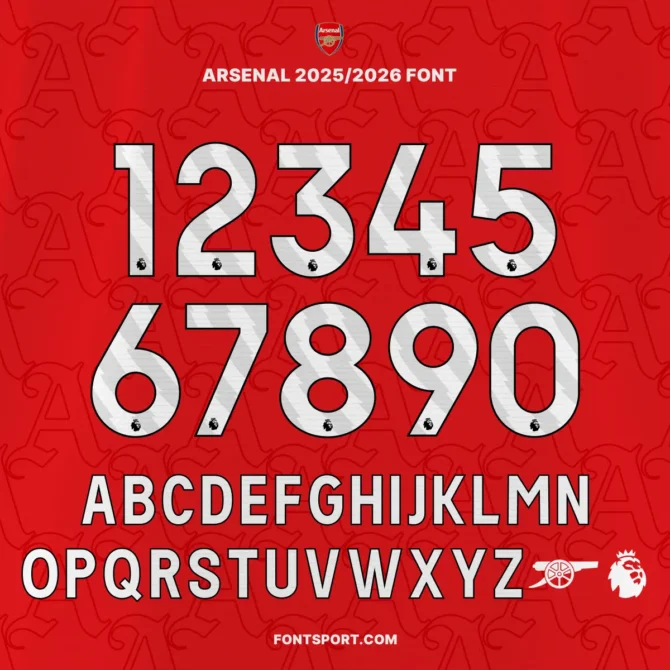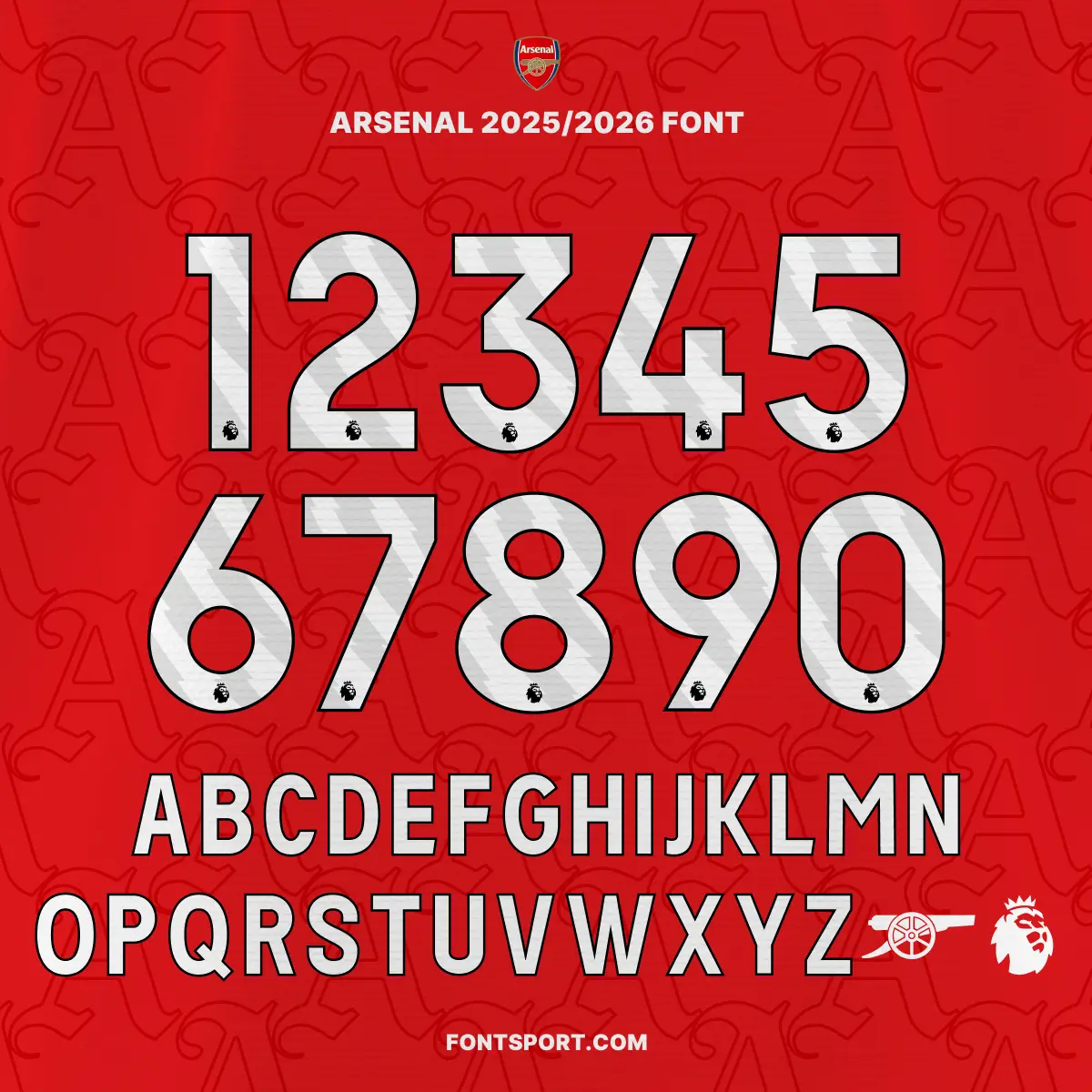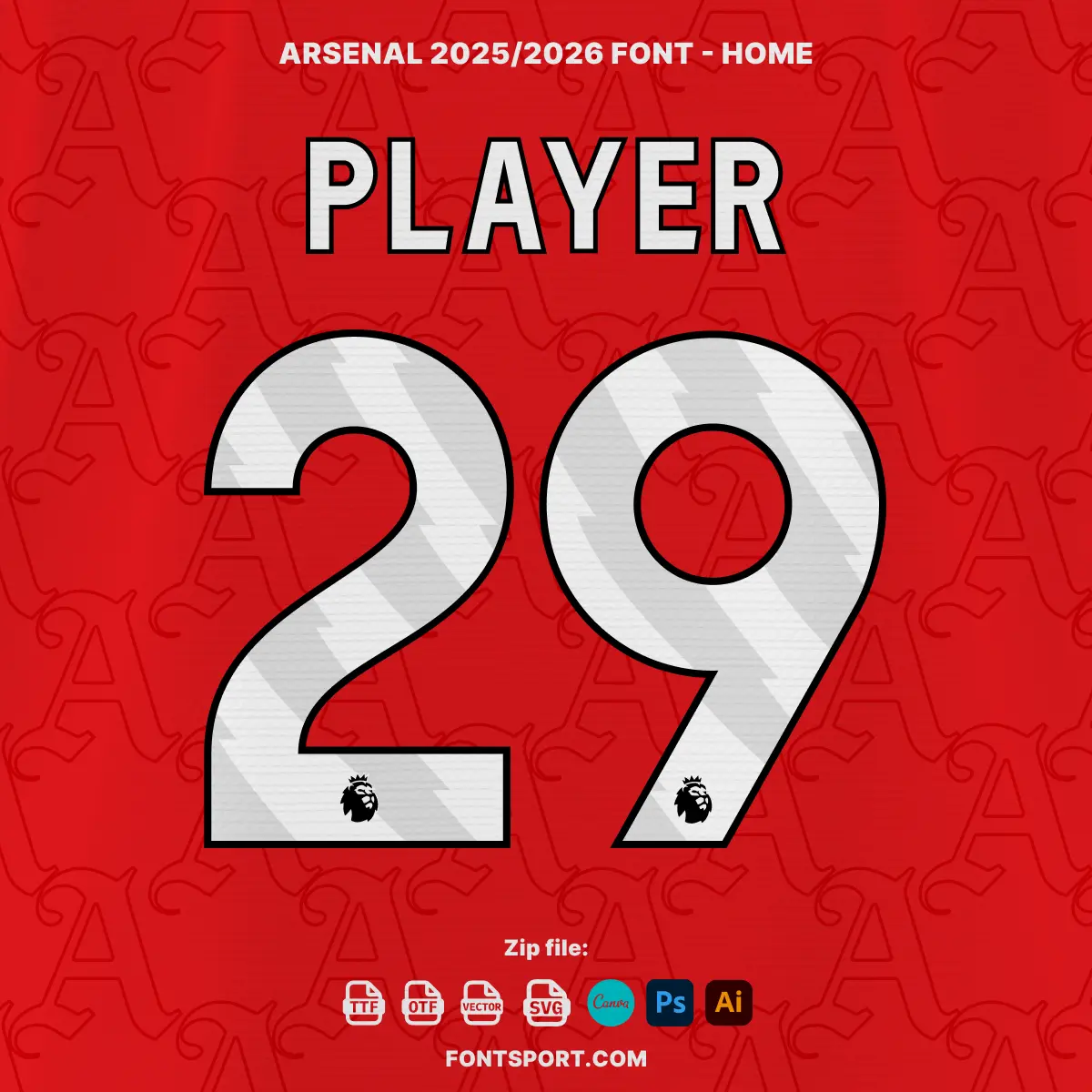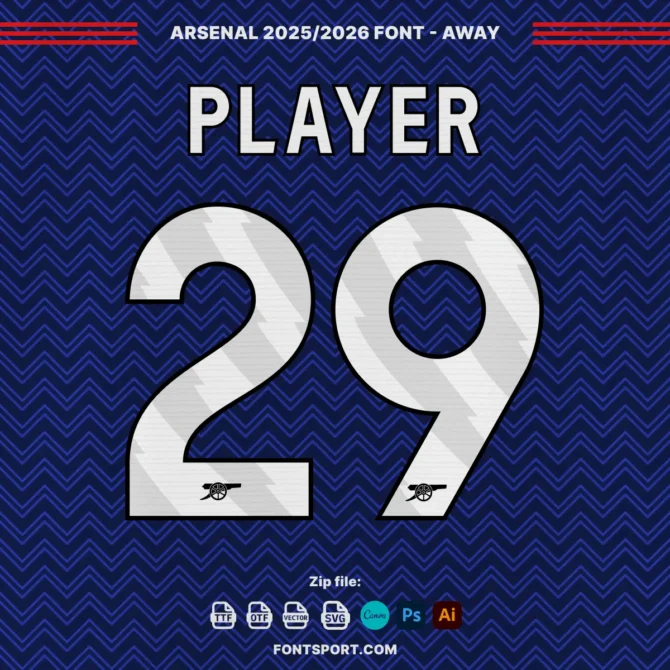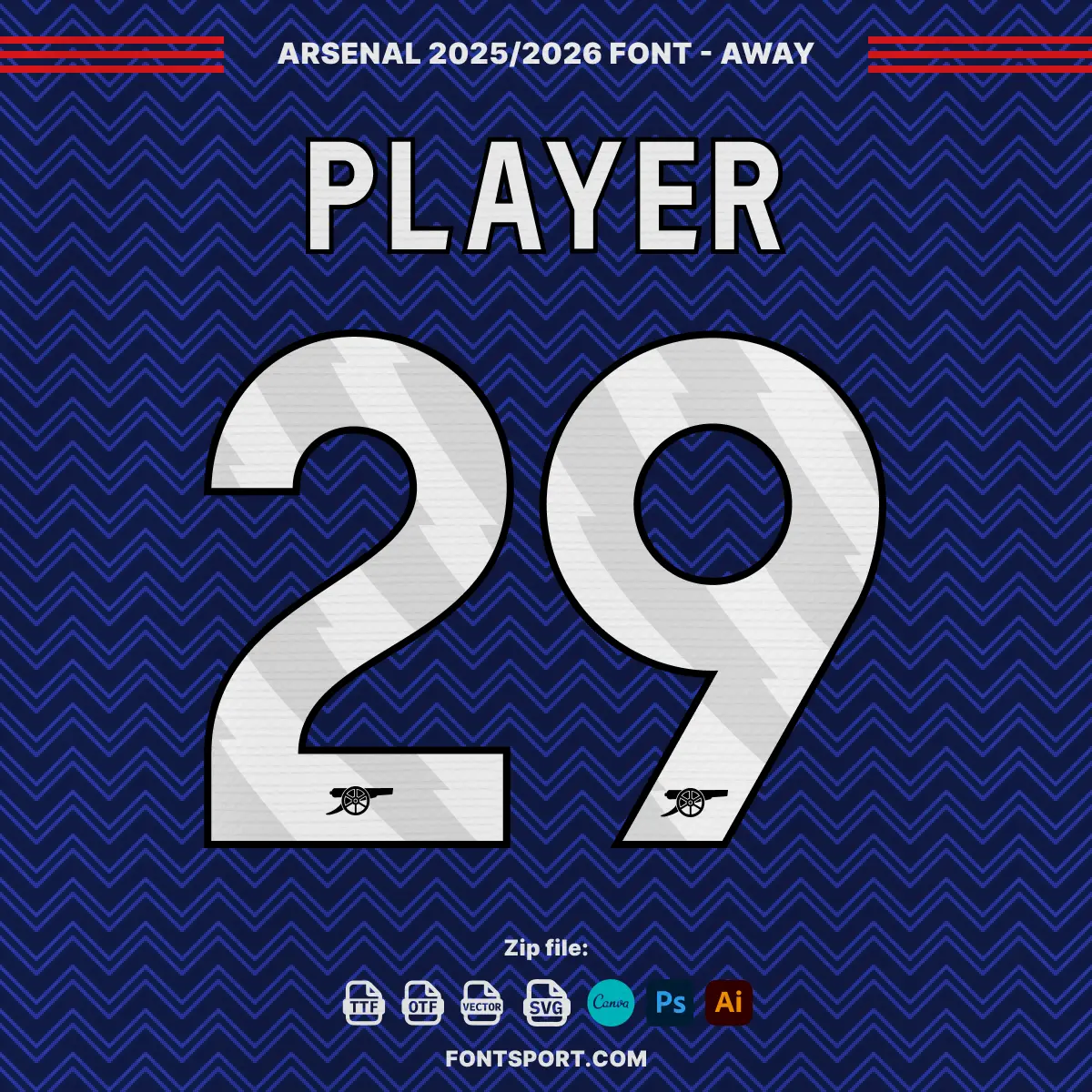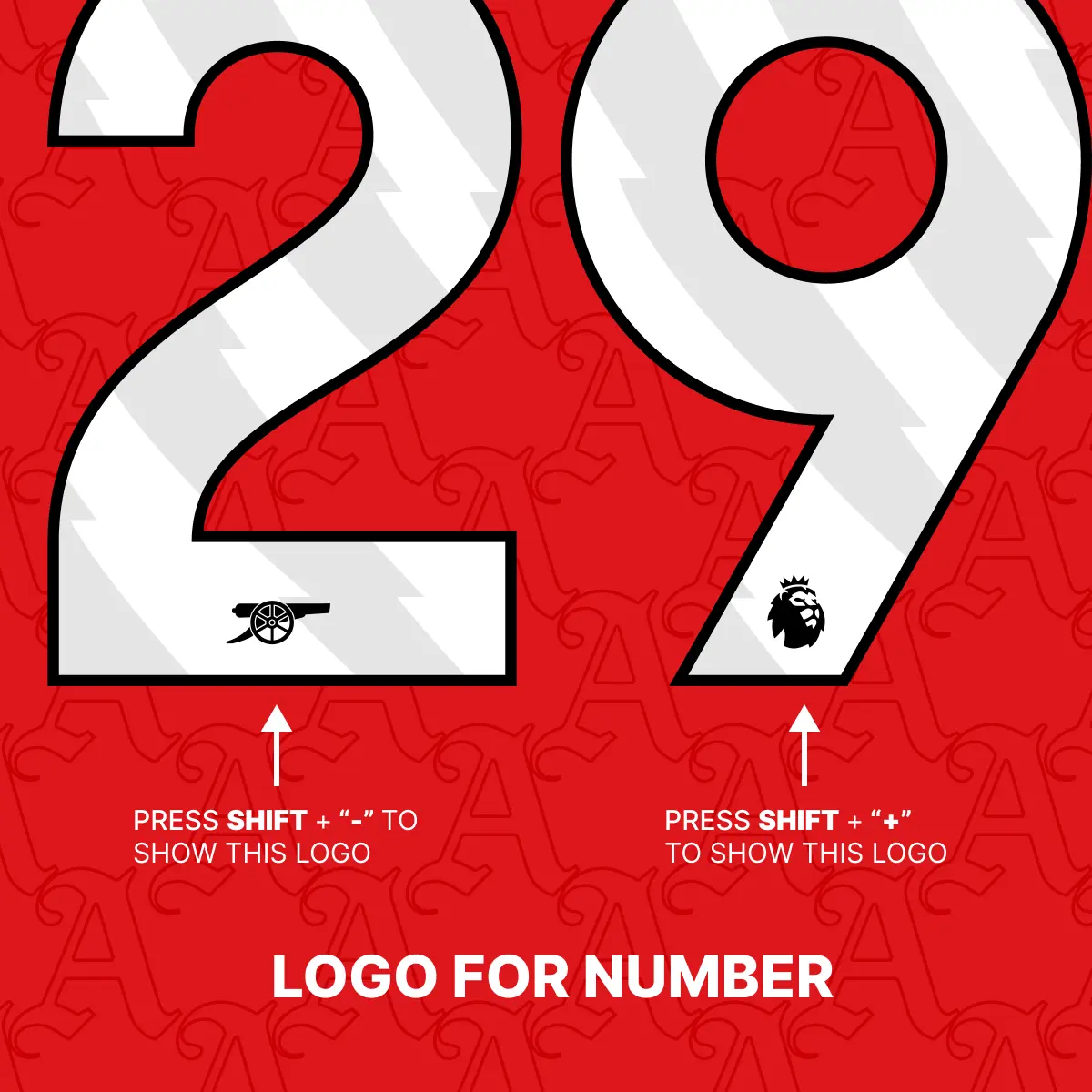
Arsenal F.C. Font Kit 2025/2026
The Arsenal FC Font Kit 2025/2026 is a bold and modern typeface inspired by the iconic North London club’s official typography for the Premier League 2025/2026 season. Whether you’re a designer, football fan, or small business owner, this kit offers a creative way to channel the Gunners’ identity into your next visual project.
Complete uppercase A–Z and numbers 0–9
Two built-in logo glyphs – the official Arsenal FC crest and a Premier League lion icon
Multilingual support with accented Latin letters
In addition, the font has been tested for clarity and legibility across print and screen formats. The clean structure of each letter ensures that your content looks sharp, even when resized. Whether you’re designing a small sticker or a full-scale banner, this font will deliver visual impact with ease.
Top Arsenal stars like Bukayo Saka and Martin Ødegaard have helped elevate the club to global prominence. This font kit reflects that energy—offering a fresh yet respectful nod to Arsenal’s legacy through type.
🔴 Inspired by the official Arsenal FC 2025/2026 typeface used in Premier League matches.
Arsenal FC 2025/2026 Premier League font kit preview showing bold white numbers and uppercase letters on red background with embedded logos for Arsenal and Premier League.